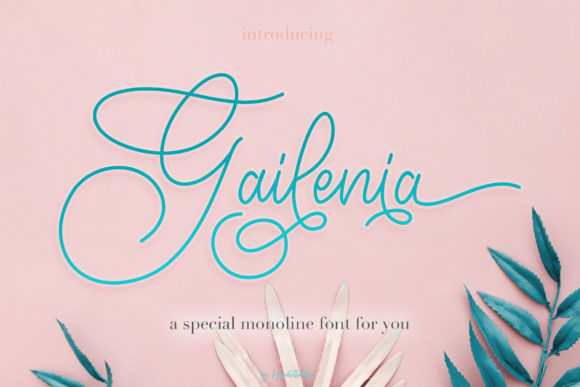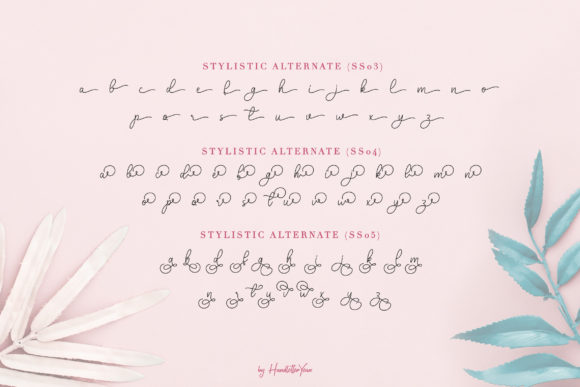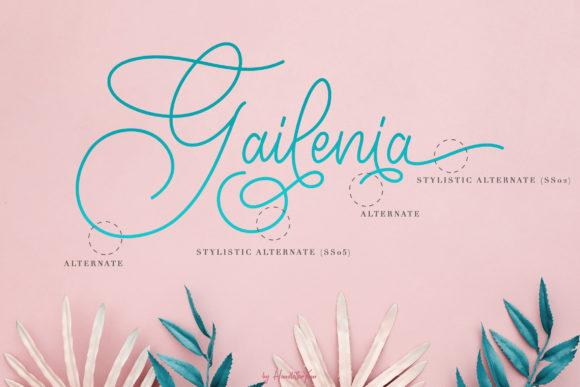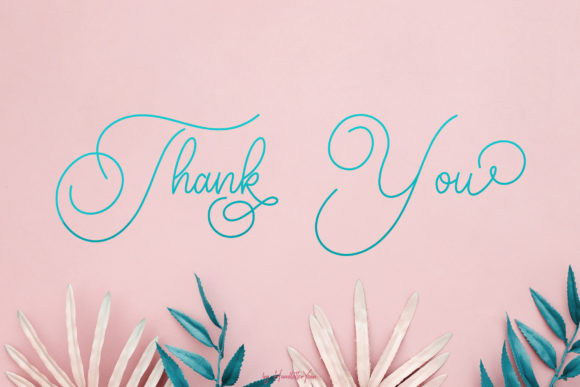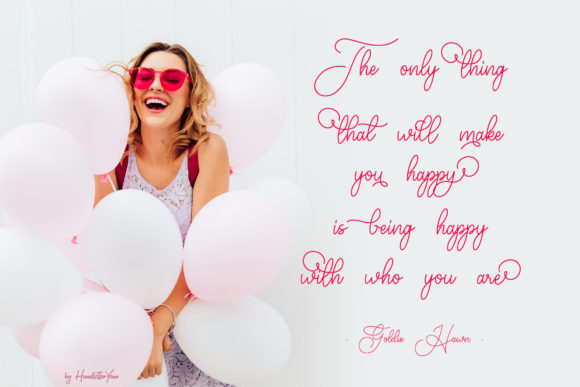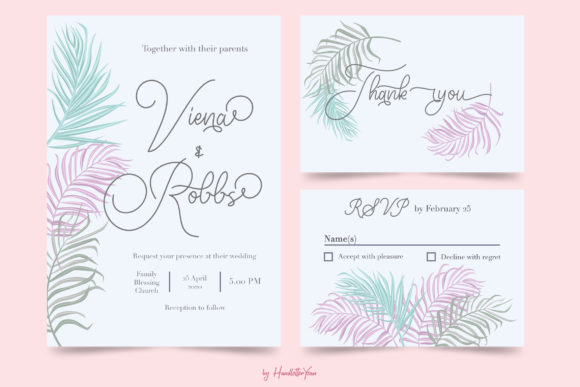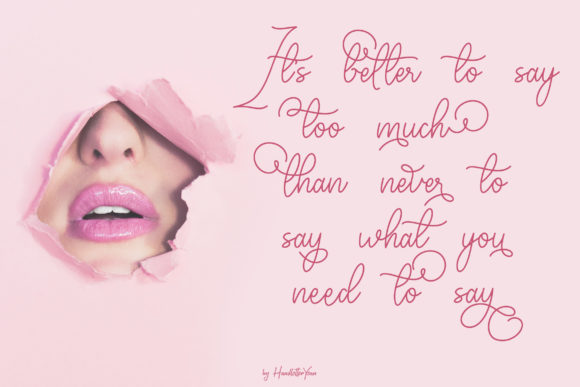
About Gailenia Font
Gailenia is a romantic, soft hand-lettered script font. The gorgeous letters make it the perfect font for creating stunning stationery or Valentine’s Day art. Gailenia comes packed with beautiful swashes, that will allow you to add a decorative touch within seconds. It comes in 2 unique font styles, regular and italic. Fall in love with its authentic feel and use it for a wide variety of crafting ideas such as gorgeous wedding invitations, beautiful stationary art, eye-catching social media posts, and cute greeting cards for Valentine’s Day.
This font is PUA encoded which means you can access all of the magical and fancy glyphs and swashes with ease! It also features a wealth of special features including alternate glyphs and ligatures.